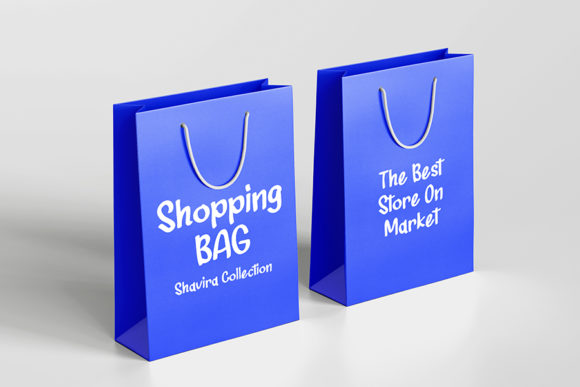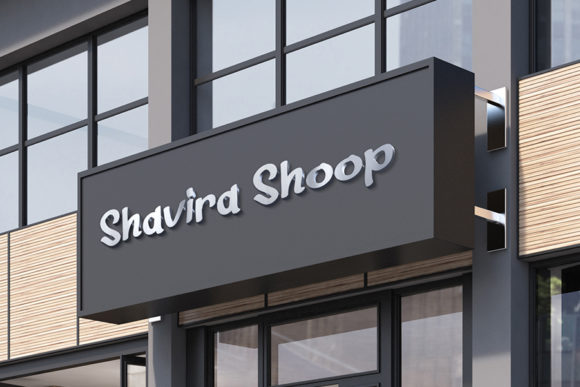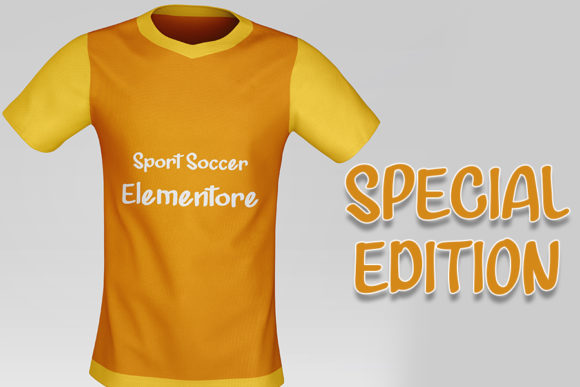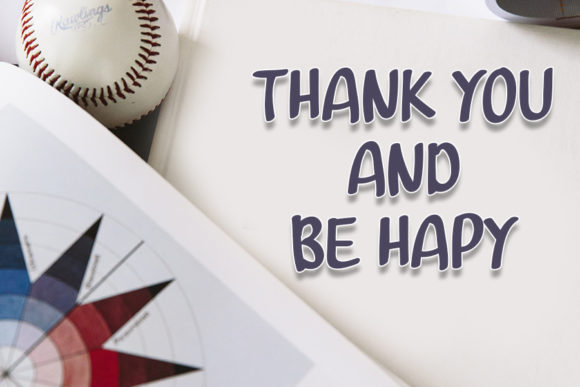
Introduction to Shunshise Font
Shunshise is a stylish and modern handwritten font.
Friendly and incredibly unique, this font will adapt to a wide variety of designs .
Key Features of Shunshise Font
Why Choose Shunshise Font?
Shunshise Font offers exceptional quality and versatility, making it a valuable addition to your design toolkit. Whether you’re creating for personal projects or commercial use, Shunshise Font delivers professional results.